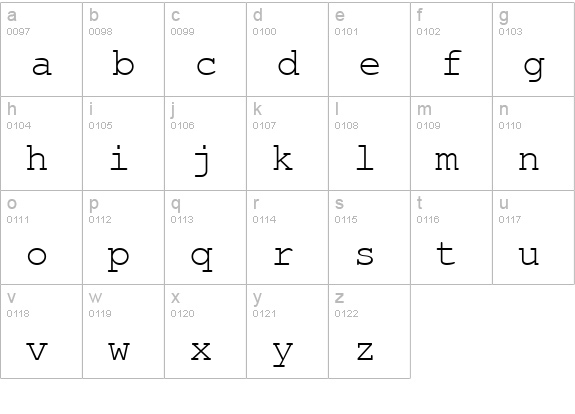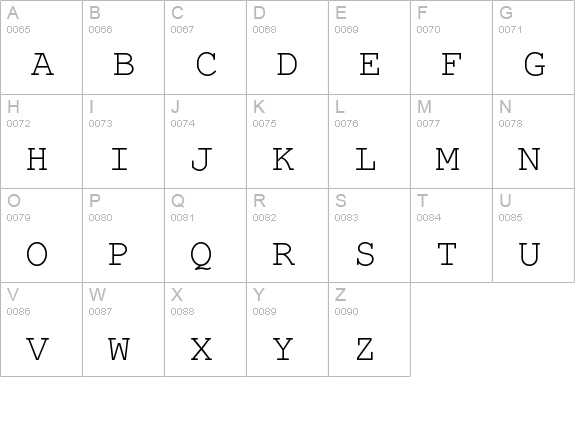
NimbusMonL Font Details
Introducing NimbusMonL font – a sleek and modern typeface designed for maximum readability and style. With its clean lines and sharp edges, NimbusMonL is perfect for a wide range of design projects, from branding to editorial layouts. This versatile font features a timeless aesthetic that will elevate any project it is used in. What sets NimbusMonL apart is not just its design, but also its accessibility. This font is available for free download at FontsMarket.com, making it an ideal choice for designers looking to add a professional touch to their work without breaking the bank. Whether you're working on a website, poster, or logo, NimbusMonL is sure to make a bold statement and leave a lasting impression on your audience. Don't miss out on the opportunity to enhance your designs with the elegant and modern NimbusMonL font – download it for free today at FontsMarket.com and take your projects to the next level!